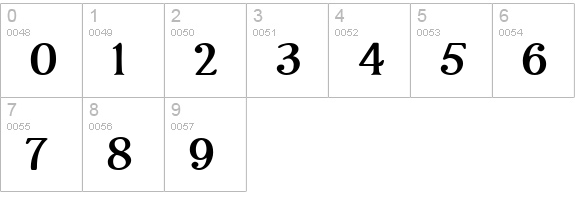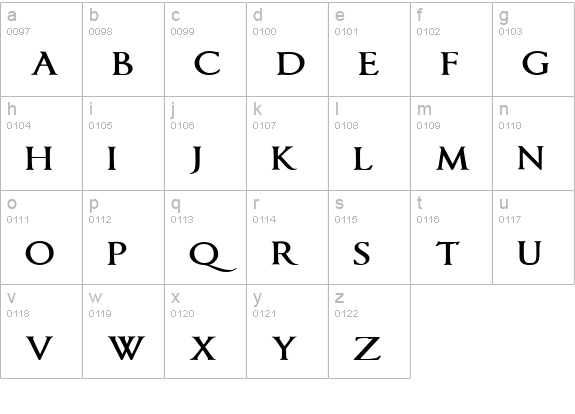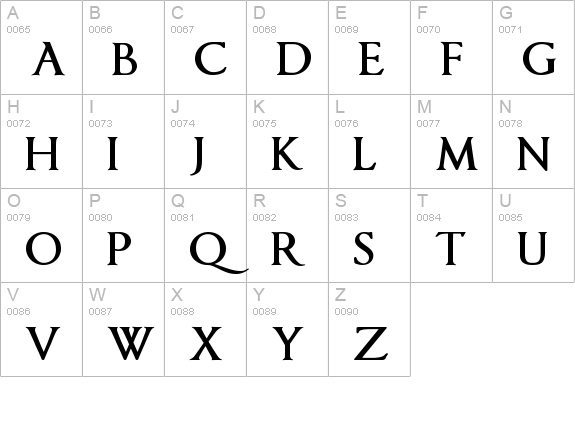
ImperatorSmallCaps Bold Font Details
ImperatorSmallCaps Bold is a strong, high-contrast variant in the ImperatorSmallCaps typeface family \xE2\x80\x94 well suited to headlines, attention-grabbing titles, and strong calls-to-action.
ImperatorSmallCaps Bold font is an exquisite typeface that exudes elegance and sophistication. With its bold and commanding presence, this font is perfect for adding a touch of grandeur to any design project. The distinctive small caps give it a unique and stylish look, making it a versatile choice for both headings and body text. The bold weight of ImperatorSmallCaps Bold font ensures that your message is delivered with impact and authority. Its clean and sharp lines create a sense of professionalism and attention to detail, making it ideal for corporate branding, editorial design, and advertising campaigns. What makes ImperatorSmallCaps Bold font even more appealing is that it is freely available to download at FontsMarket.com. This means that you can easily access and use this magnificent font in your personal or commercial projects without any hassle. Its availability for free makes it a valuable asset for designers, students, and anyone looking to add a touch of sophistication to their creations. So, whether you are designing a logo, creating a poster, or developing a website, ImperatorSmallCaps Bold font will elevate your design to new heights. Its bold and powerful presence combined with its free availability makes it an irresistible choice for any design project. Download it now from FontsMarket.com and let your creativity shine with this remarkable font.